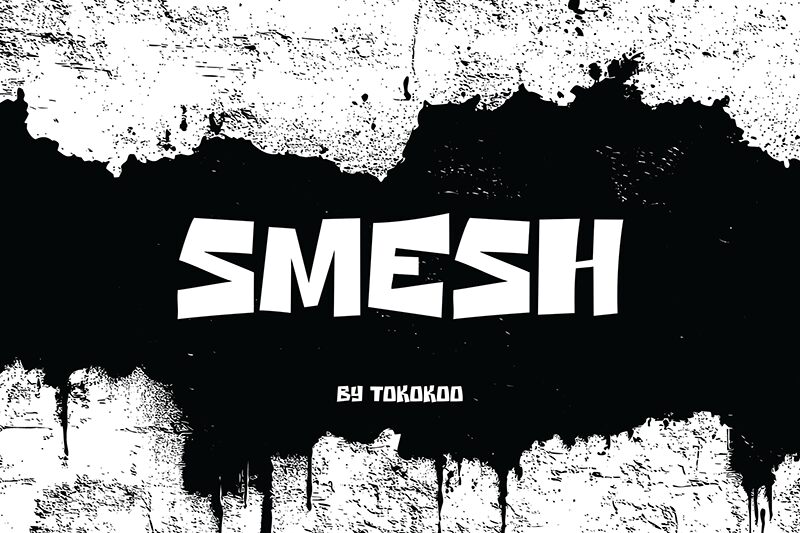
SMESH
Smesh font by Tokokoo Studio is a bold, irregular display font with an angular, geometric design. It presents an edgy aesthetic and embodies vibrant energy that captures attention even from afar. The font’s typeface style is cartoonish; it adopts peculiar shapes and lines in an artistic format that easily retains the reader’s attention.